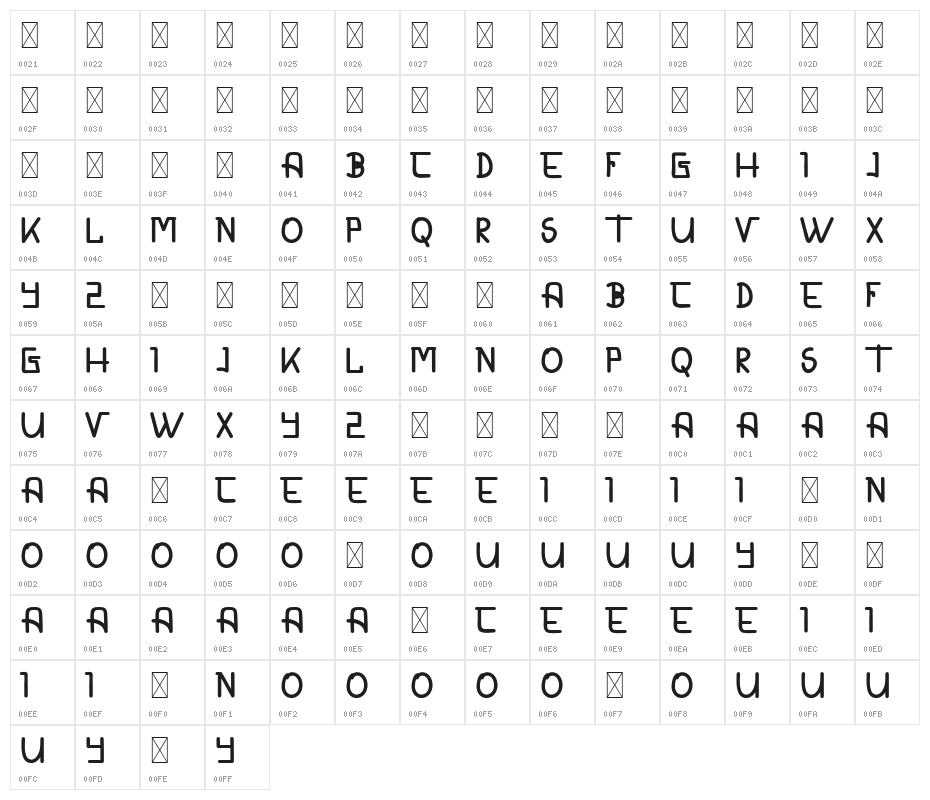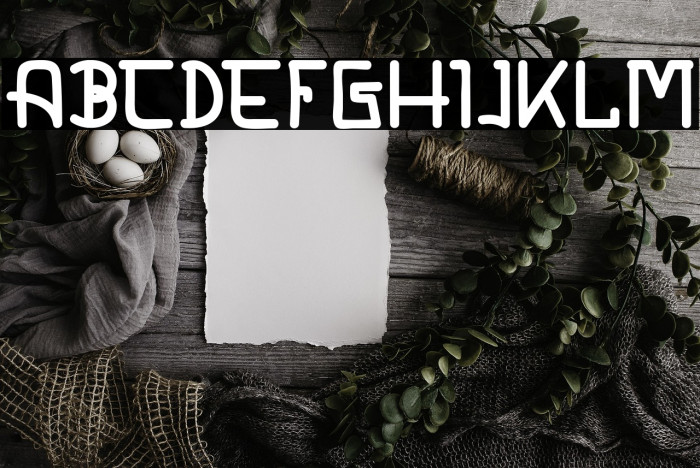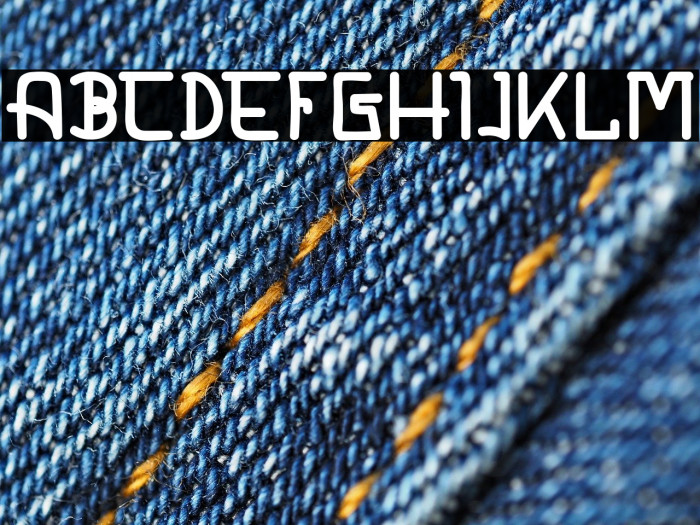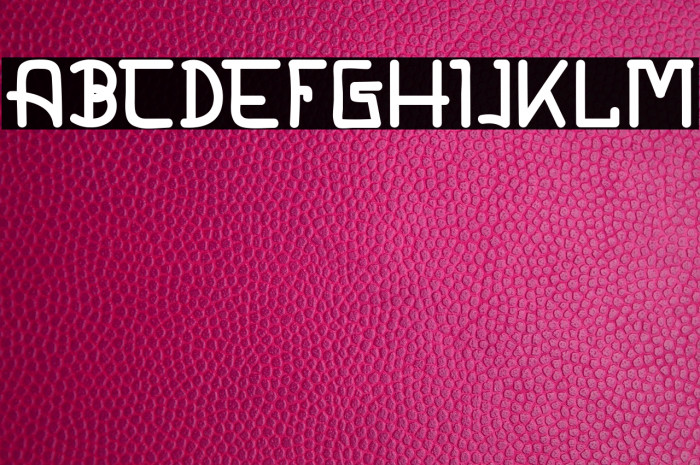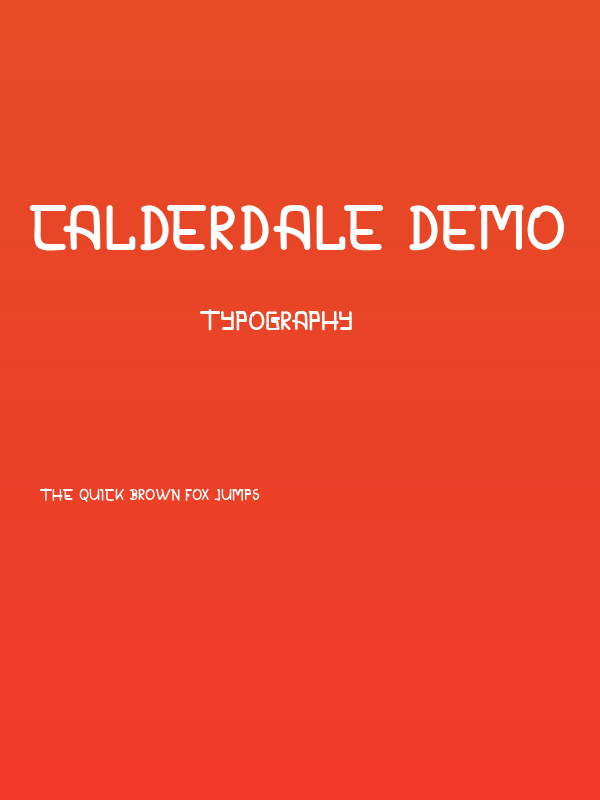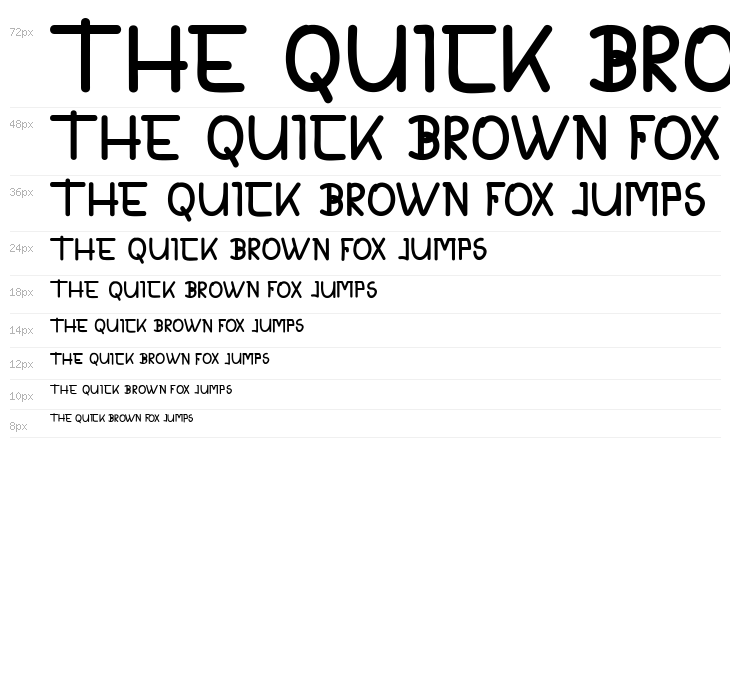
CALDERDALE DEMO Font
CALDERDALE DEMO Description
This font features a unique and playful design with rounded edges and a slightly irregular form, giving it a hand-drawn appearance. The letters are bold and have a consistent stroke width, which adds to their legibility and charm. The uppercase and lowercase letters maintain a uniform height, contributing to a cohesive look. The characters are well-spaced, ensuring readability, while the overall style is modern and whimsical. This font's distinctive character makes it suitable for creative and informal projects.
| Proposed Projects | Ideal for children's books, creative posters, playful branding, and informal invitations. |